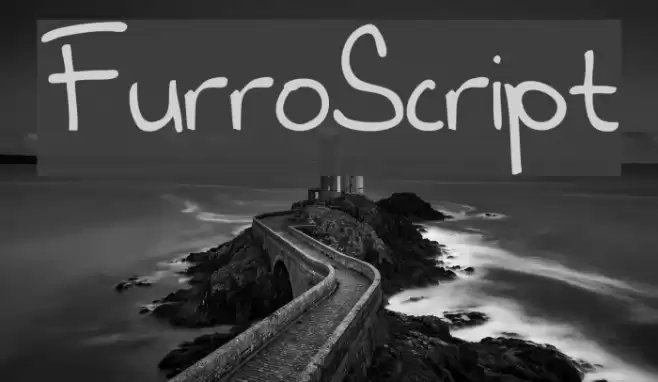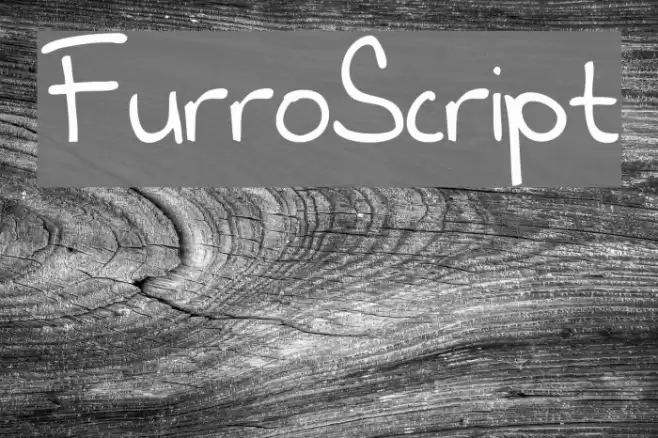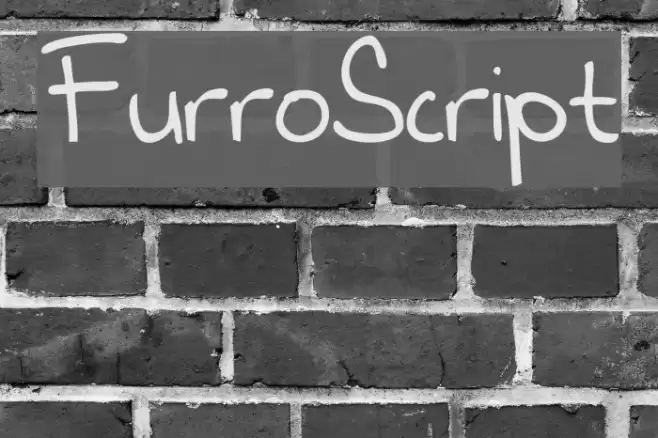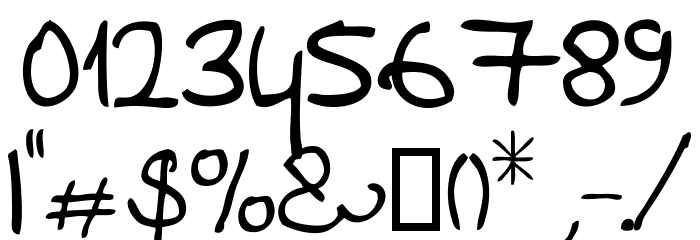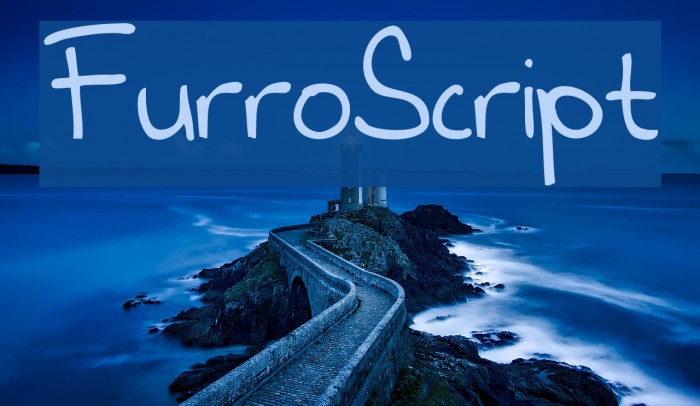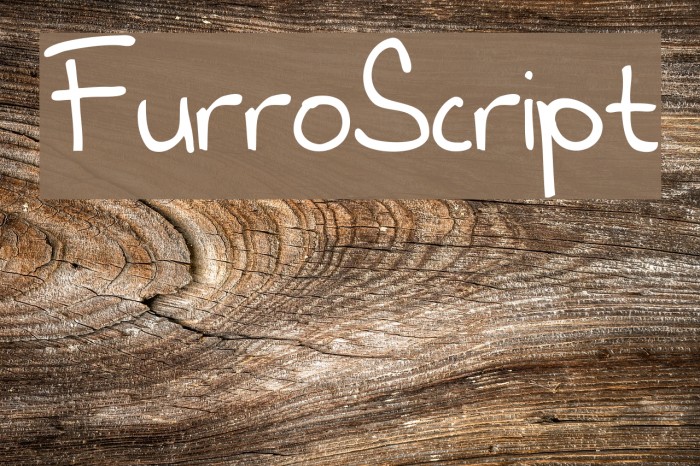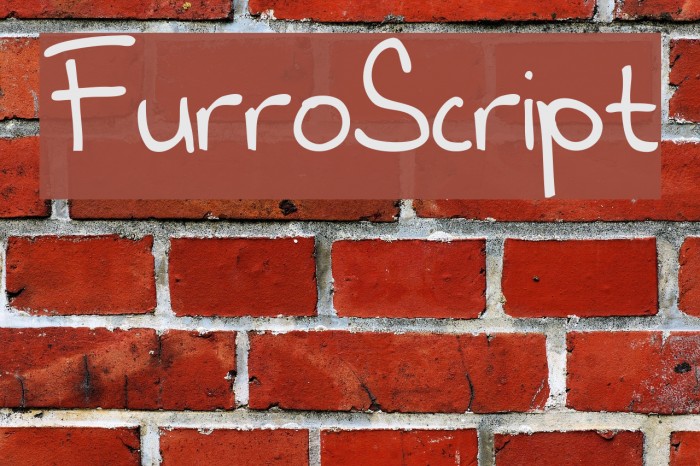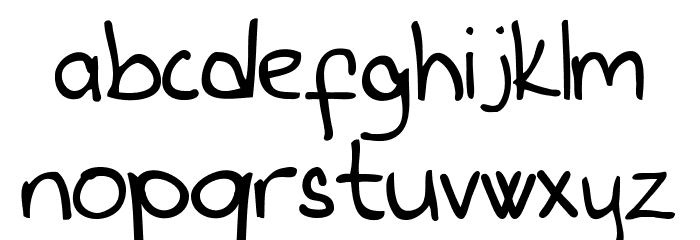
FurroScript Font
FurroScript Description
This font features a playful and casual handwritten style, characterized by its smooth, flowing lines and slightly irregular shapes. The uppercase letters are bold and prominent, while the lowercase letters maintain a consistent flow with a slightly whimsical touch. The numerals are rounded and easy to read, complementing the overall informal aesthetic. Special characters are creatively designed, adding to the font's unique personality. Its organic appearance makes it suitable for projects that require a personal and approachable feel.
A playful, handwritten font with smooth, flowing lines and a casual style from Handwritten fonts.
- Proposed Projects: Ideal for greeting cards, children's books, casual branding, and social media graphics.
- Overall Style: Casual
- Use Case: Logos, Headlines, Informal Text